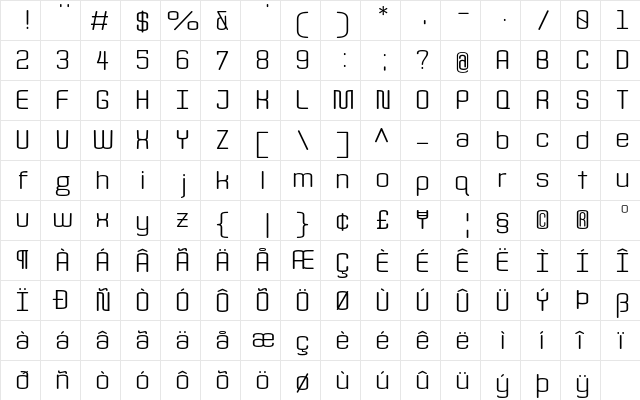
Quota Regular Ext.
| Designer | Ryan Willaismon |
Design Context for Quota Typeface
Quota is a composed and adaptable typeface that performs quietly and consistently across a wide range of design contexts.